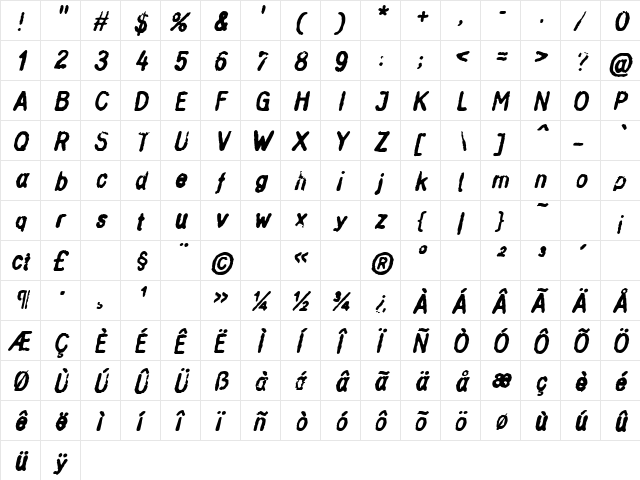
Inkbleed Oblique
Design Context for Inkbleed Typeface
Inkbleed takes a measured approach to typography — its balanced proportions and neutral character make it a reliable workhorse for both digital and print work. The slanted form adds forward momentum and visual energy.